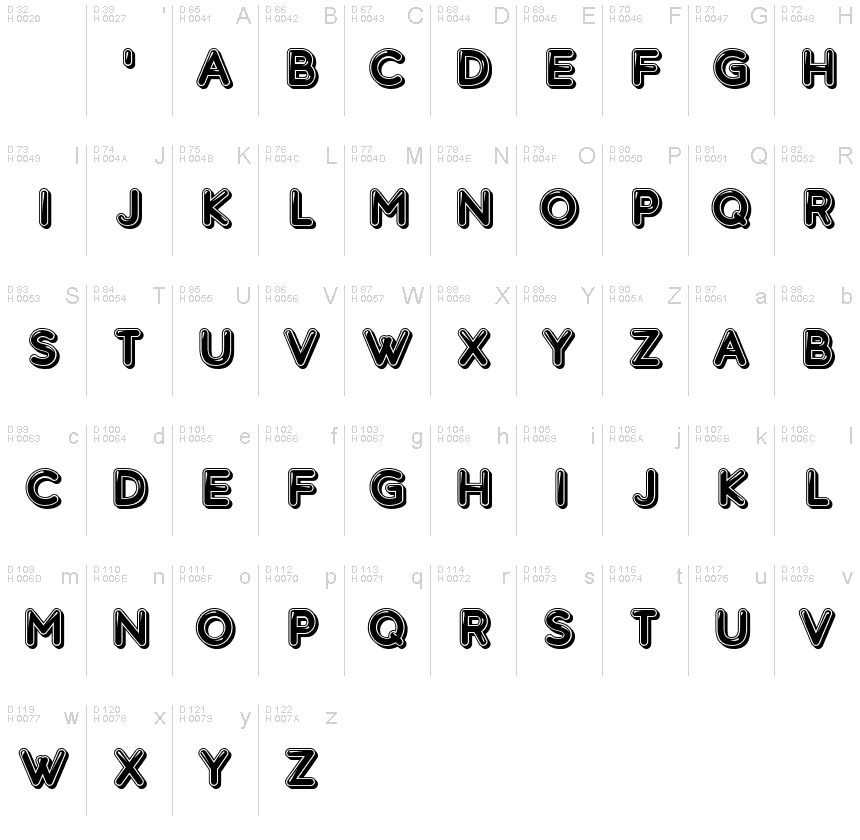
Candy Rush Regular
Candy Rush, designed by Vladimir Nikolic, is a groovy display font that will add a playful touch to any project. Its semi-bold weight makes it perfect for headlines and titles that need to stand out. This fun and energetic font is suitable for a variety of projects, from candy packaging to children's book covers. Use it in your next branding project to create a unique and memorable logo or incorporate it into your website design for an eye-catching display. With its cheerful vibe and semi-bold font style, Candy Rush is sure to add sweetness to any design project.